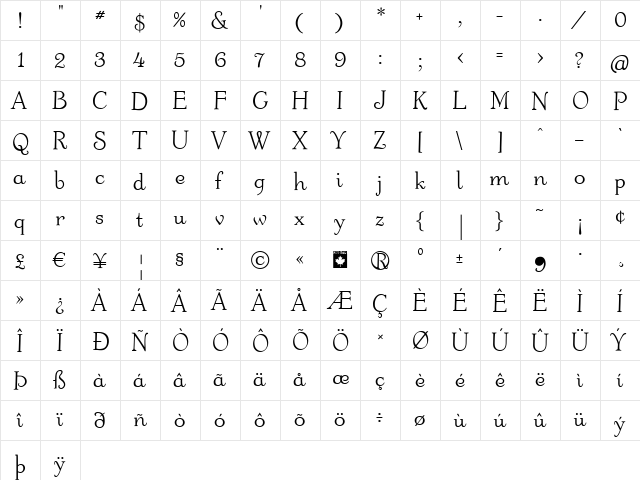
Odette Regular
| Foundry | Canada Type |
Design Context for Odette Typeface
Odette takes a measured approach to typography — its balanced proportions and neutral character make it a reliable workhorse for both digital and print work.